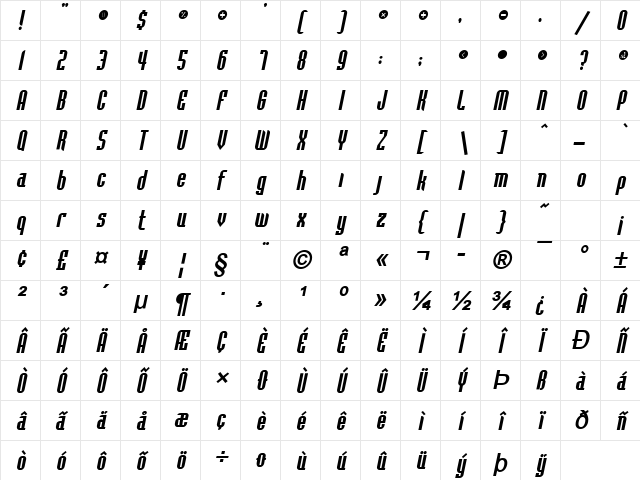
Flintstone BoldItalic
Design Context for Flintstone
Flintstone is a composed and adaptable typeface that performs quietly and consistently across a wide range of design contexts. The slanted form adds forward momentum and visual energy. Its bold stroke weight gives it real presence on the page.
Pro Tip: Use Flintstone for emphasis, pull quotes, and subheadings where its slanted energy can add rhythm to the layout.